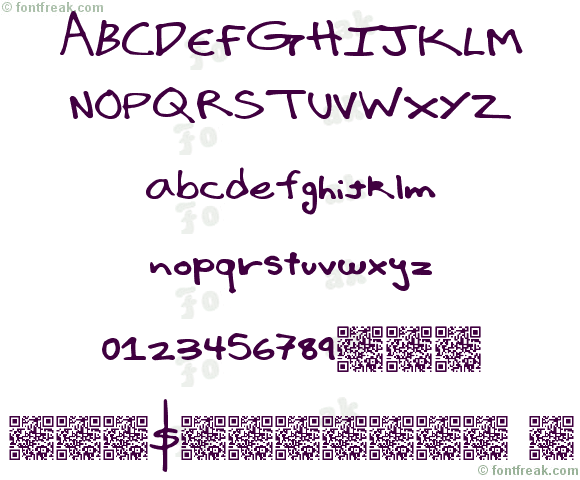
LuxuryImport
LuxuryImport by XEROGRAPHER FONTS is a distinctive display font that seamlessly blends elegance with a modern flair. Released in 2013, this font showcases a unique handwritten style, exuding a casual yet sophisticated vibe. The strokes are fluid and organic, with a medium weight that provides a perfect balance between readability and artistic expression. The spacing between characters is generous, enhancing legibility while maintaining an airy feel that adds to its luxurious appeal.
The visual characteristics of LuxuryImport include gentle curves and playful flourishes, making it an excellent choice for a variety of creative projects. Its decorative elements enhance its charm without overwhelming the viewer, allowing it to retain a clean and polished appearance. This font shines in specific use cases, such as wedding invitations where a touch of elegance is essential, movie posters that require a standout title, restaurant menus aiming for a chic aesthetic, and branding materials that seek to convey a sense of luxury and style.
What sets LuxuryImport apart is its ability to convey a sense of sophistication while remaining approachable. Its unique blend of artistic flair and practicality makes it an indispensable tool for anyone looking to make a statement in their designs. With the LuxuryImport font free download available, you can easily add this stylish typeface to your collection and bring your creative visions to life.